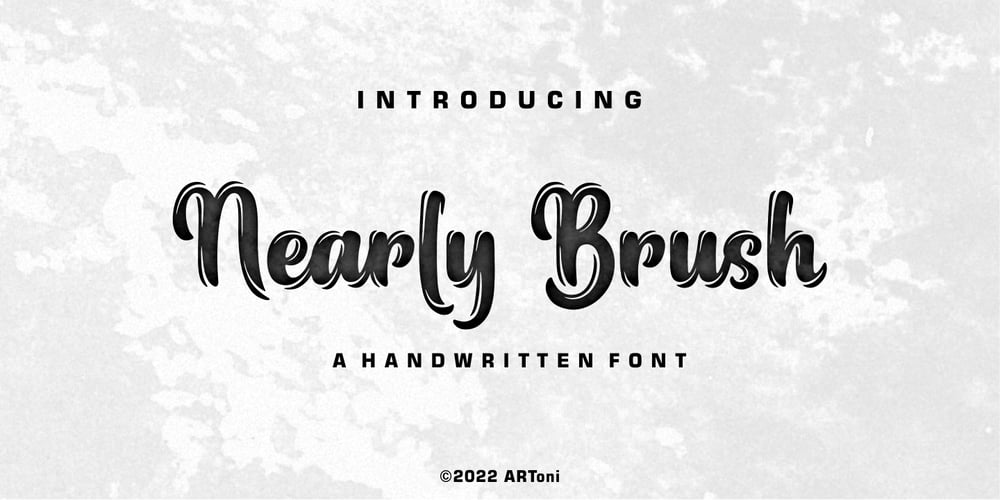
Nearly Brush
Nearly Brush font
Nearly Brush Font Family was designed by Anthonie Van Hayu and published by ARToni. Nearly Brush contains 1 styles and family package options. Nearly Brush is bold, stylish and elegant handwritten font with distinctive strokes. Its round letters will add a luxury spark to any design project that you wish to create!